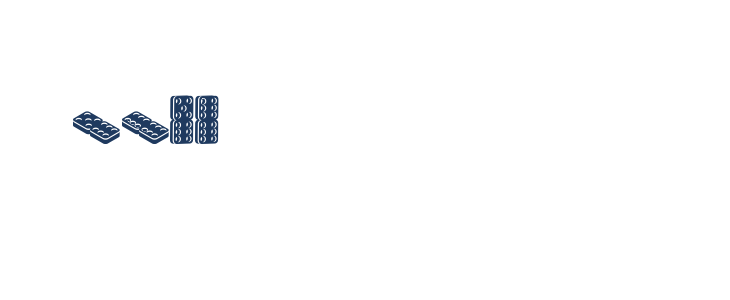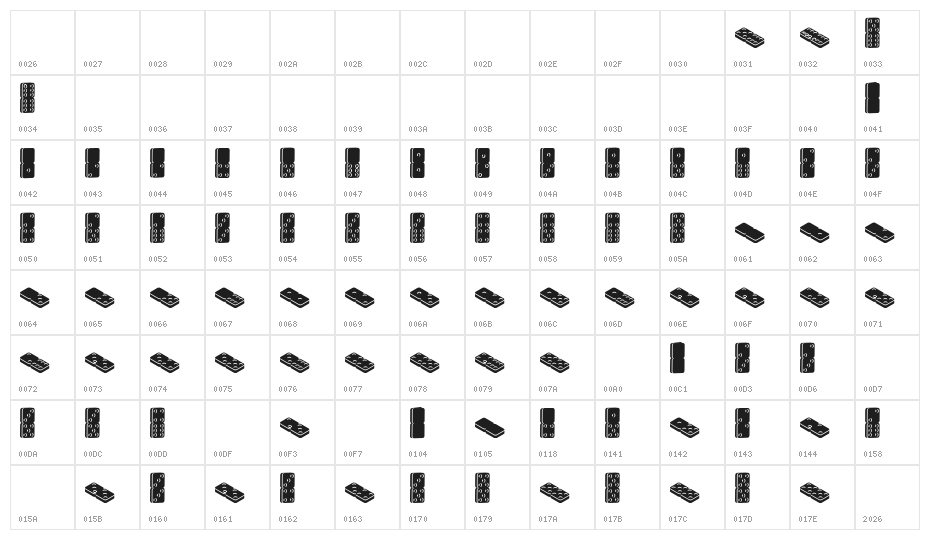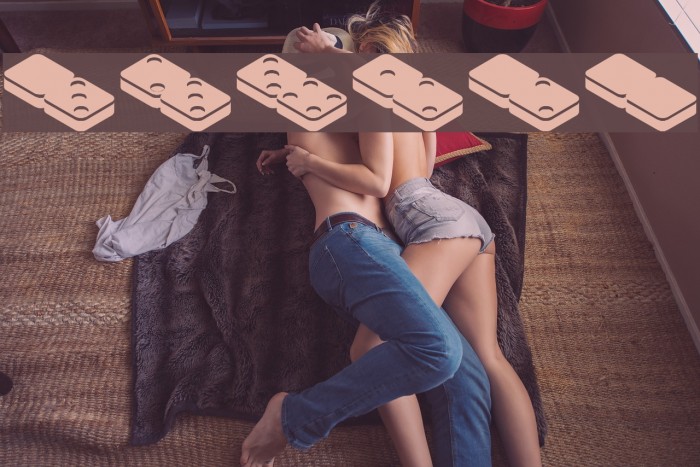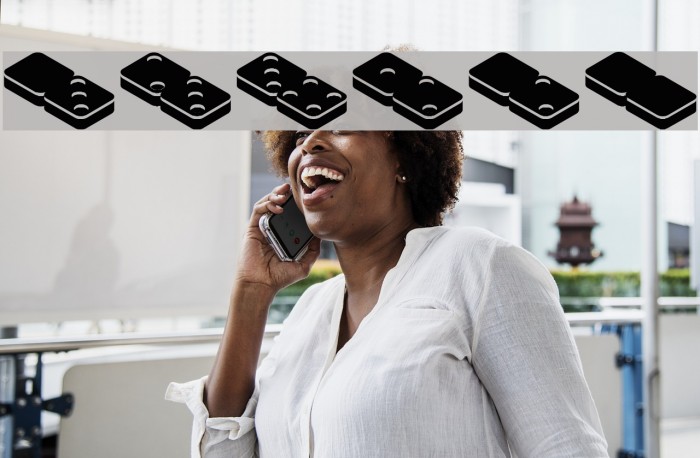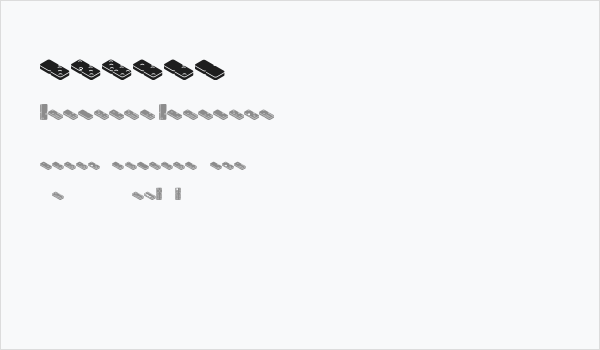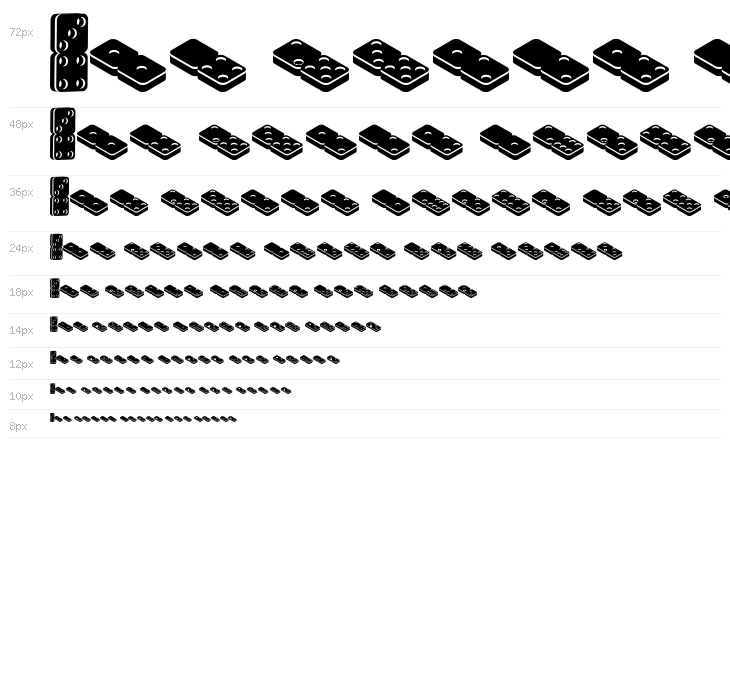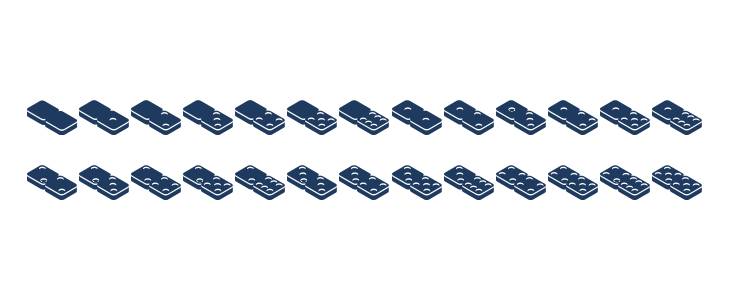
dotica Font
dotica Description
This font is a creative and playful representation of characters using domino tiles. Each letter and number is depicted as a domino piece, with the dots arranged to form the respective character. The design is bold and striking, with a high contrast between the black tiles and white dots. The unique style makes it stand out, offering a fun and engaging visual experience. The characters are evenly spaced, maintaining a consistent and balanced appearance across the set. This font is ideal for projects that require a touch of whimsy and creativity, such as game-related designs or playful branding.
Use CaseLogos, Posters, Creative Displays
Proposed ProjectsGame designs, playful branding, children's books, creative posters.